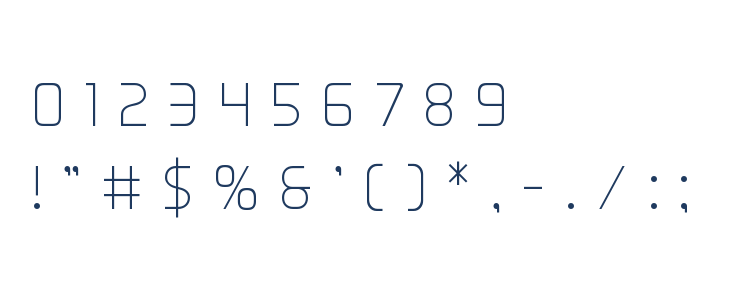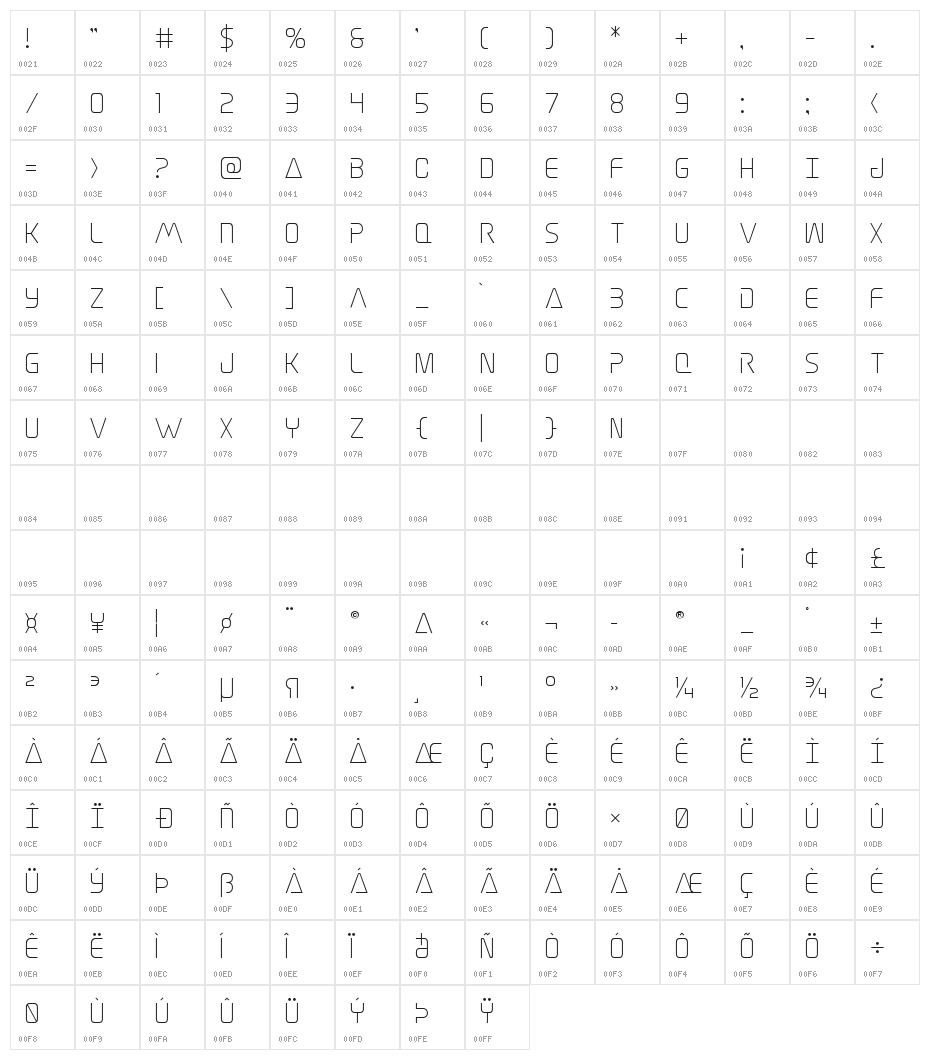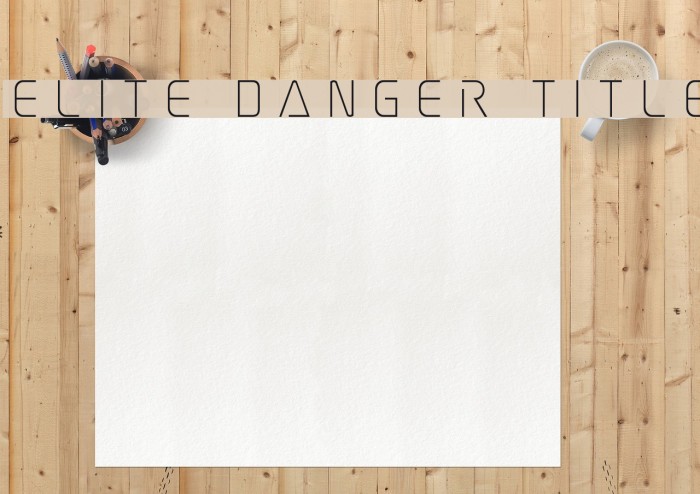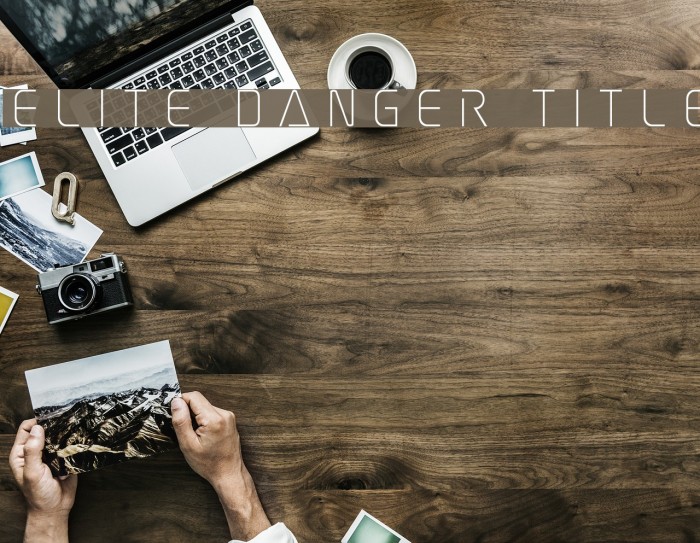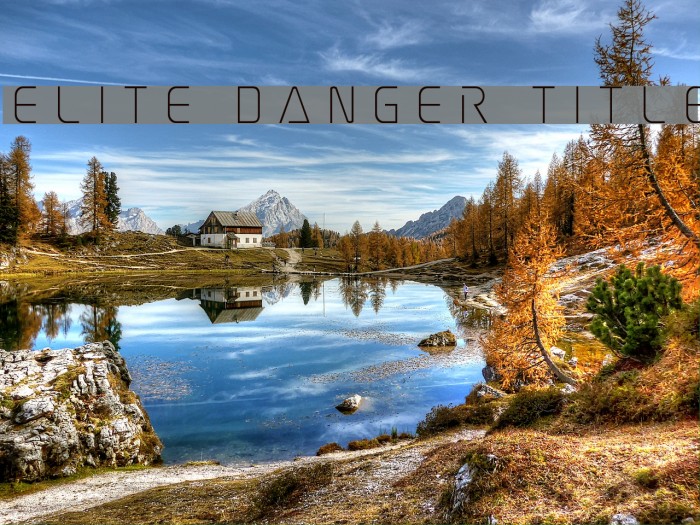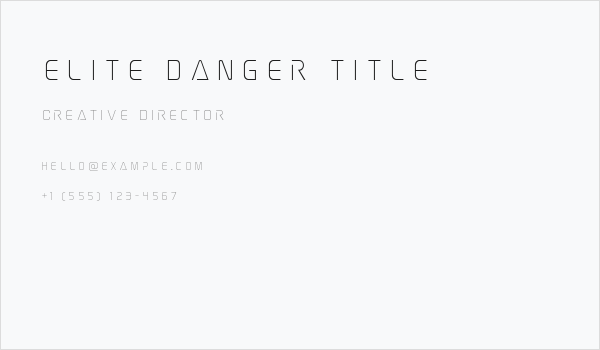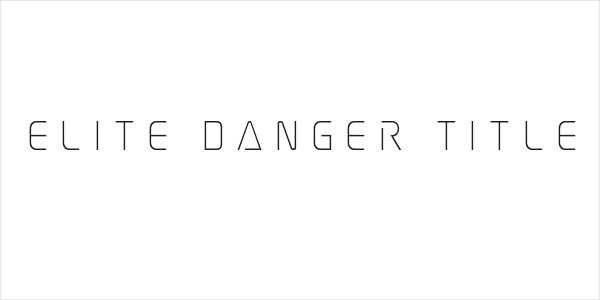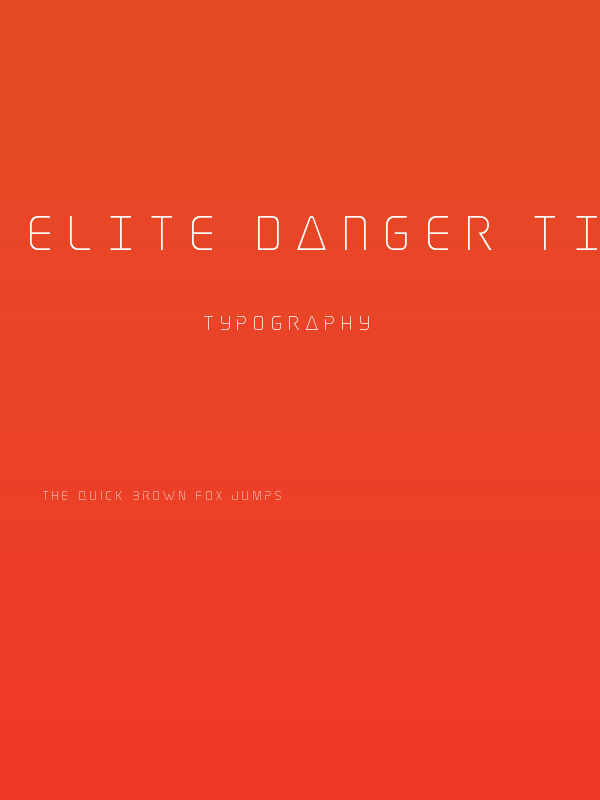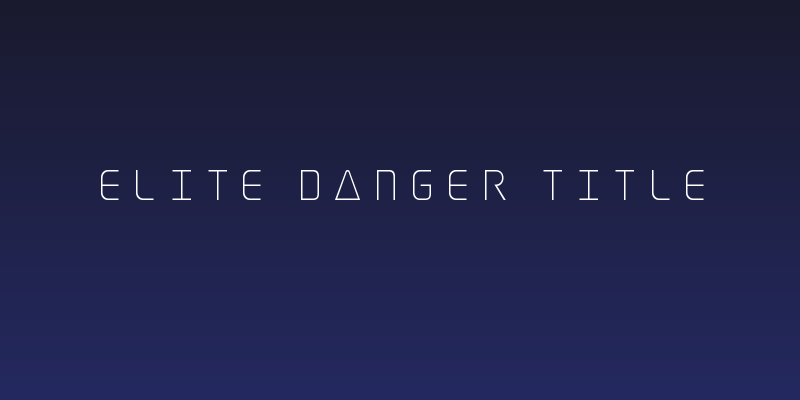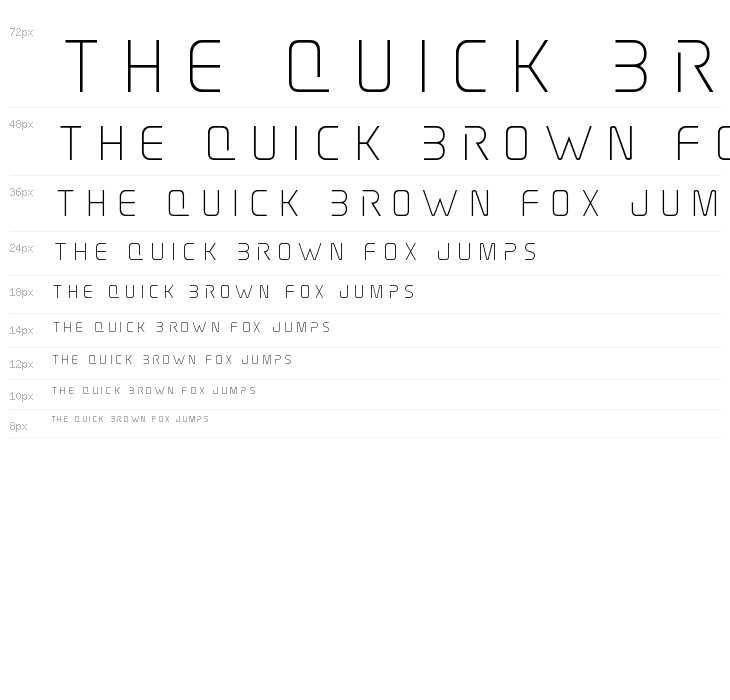
Elite Danger Title Font
Elite Danger Title Description
This font features a modern, geometric design with clean lines and a futuristic aesthetic. The characters are constructed with a consistent stroke width, giving it a sleek and uniform appearance. The uppercase letters exhibit a unique angular style, while the lowercase letters maintain a similar geometric structure. The numerals are distinct and align well with the overall design, making them easily readable. Special characters are included, matching the font's minimalist and contemporary style. The font's simplicity and precision make it suitable for various digital and print applications.
| Use Case | Headlines, Logos, Digital interfaces |
| Proposed Projects | Ideal for technology branding, sci-fi themed projects, digital interfaces, and modern advertising. |